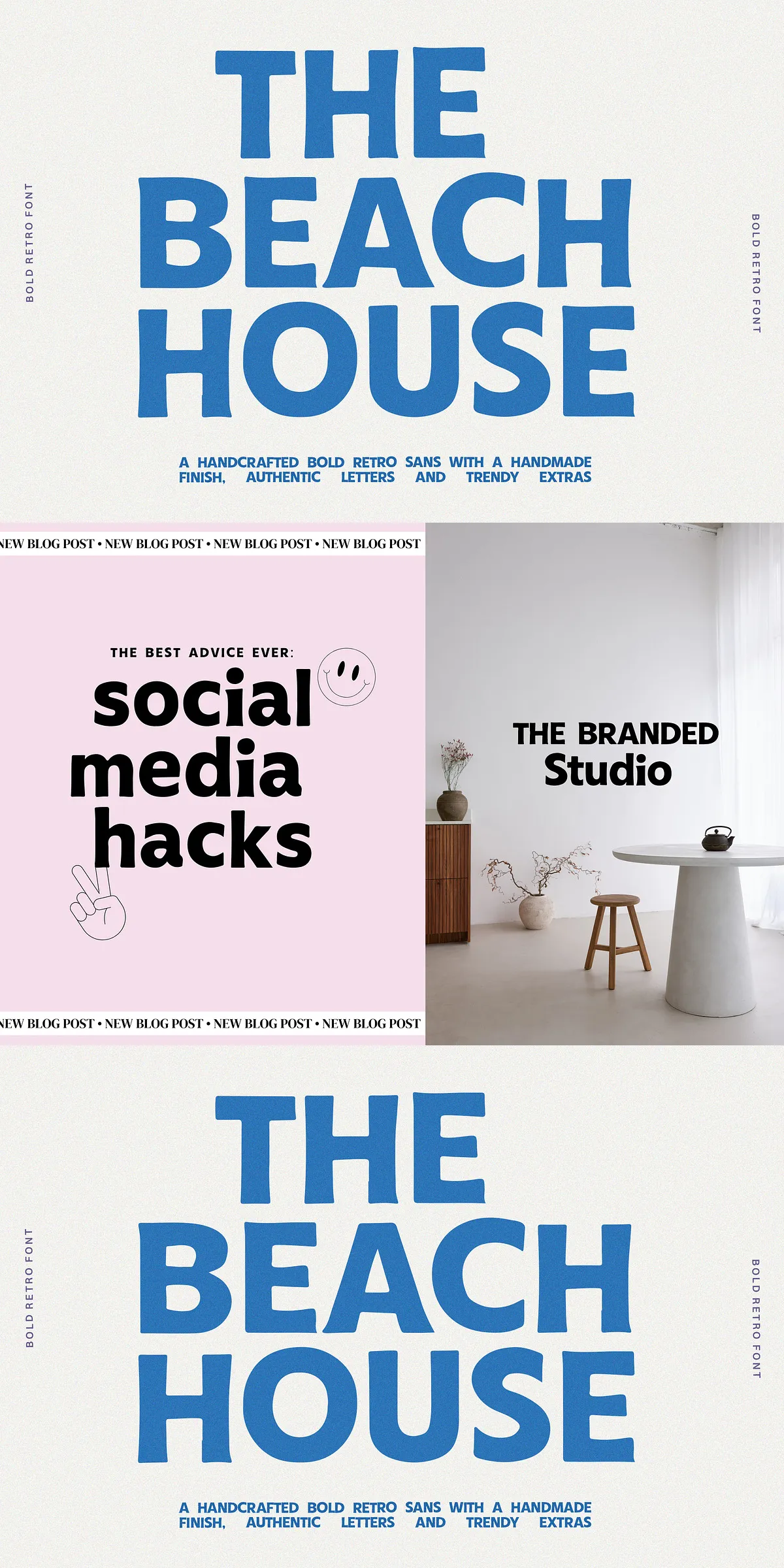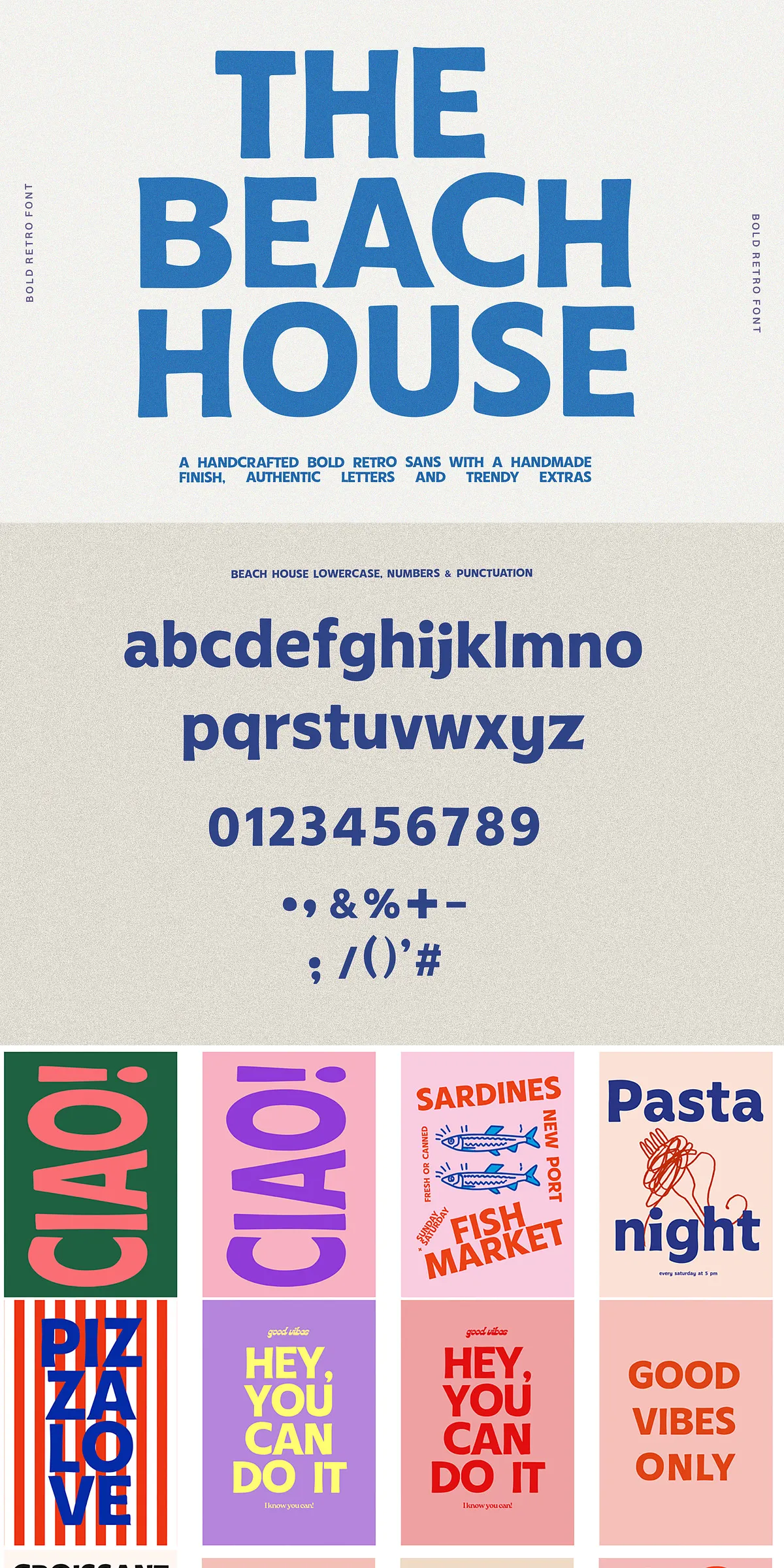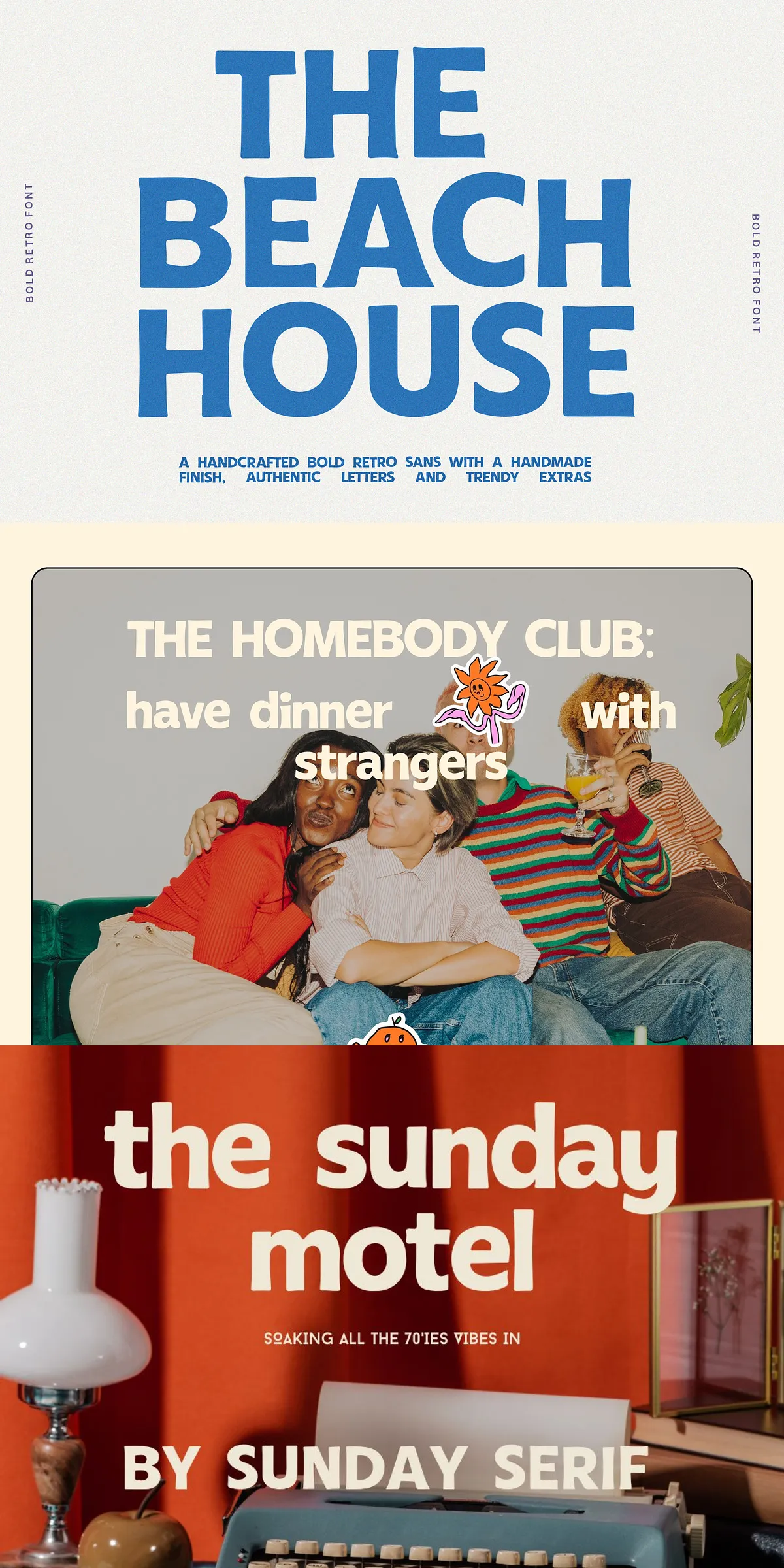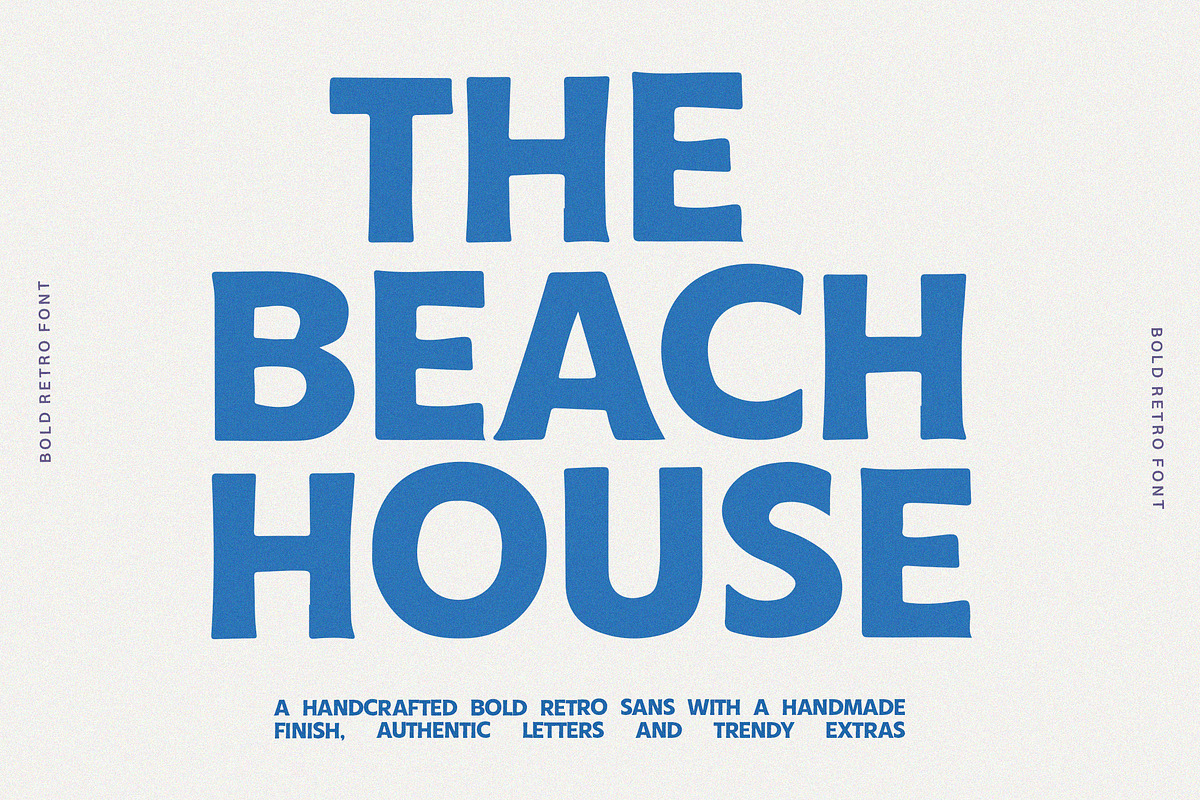
TheBeachHouse delivers an immediate, confident voice for creative projects that demand attention. Built for designers who want bold, clear display type with an authentic handcrafted finish, this sans serif balances clean geometry with the slight irregularities that read as human-made and memorable. Use it to stop scrollers, anchor posters, lift packaging, or define a brand identity that feels both modern and warmly tactile.
Design Character And Practical Visual Impact For Multiple Uses
TheBeachHouse embraces a straightforward, assertive structure while retaining subtle handmade nuances: slightly uneven terminals, gentle stroke modulation, and measured counter shapes that create personality at large sizes. These details remain controlled so the face reads crisply on billboards and web heroes while offering character for printed posters and apparel tags. The result: strong headline presence, clear readability, and a handcrafted attitude that complements contemporary editorial and retro-inspired aesthetic directions.
Recommended Use Cases For TheBeachHouse Typeface In Projects
Deploy TheBeachHouse for headline systems, posters, editorial covers, product identity, and social media hero cards. It excels in bold display roles where a typeface must arrest attention immediately. Pair the font with understated body text to maintain hierarchy, or place it against photographic backgrounds for striking overlays. It also performs well on labels and packaging where tactile charm supports premium and artisan positioning.
Weight, Styling Decisions, And Pairing Recommendations
TheBeachHouse’s bold, tactile nature makes it ideal for headline weights and display-only applications. When pairing, select a neutral sans or a clean serif for body text to maintain legibility and hierarchy. Use generous tracking for dramatic posters and tighter tracking for compact logotypes. For lifestyle or feminine brands, introduce softer supporting typography in the secondary role to balance the font’s assertive personality.
Design Tips For Maximizing TheBeachHouse’s Strengths
- Use TheBeachHouse at large sizes to emphasize its handcrafted details.
- Combine with minimal color palettes to let letterforms carry visual weight.
- Layer with textures or halftone backgrounds when creating retro-inspired posters.
- Outline or expand slightly when creating print-ready logos for vendor compatibility.